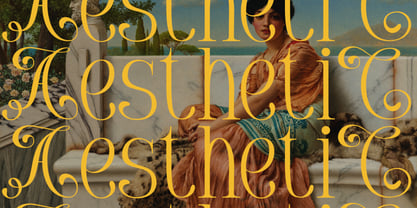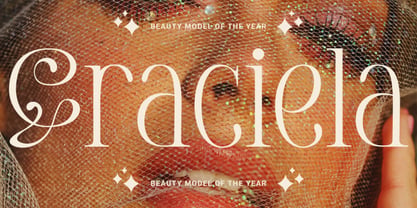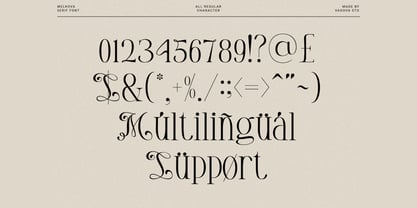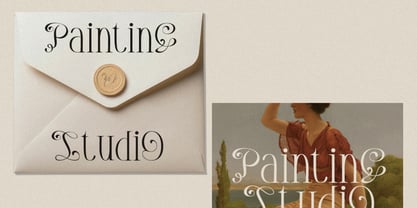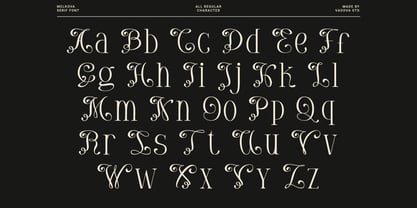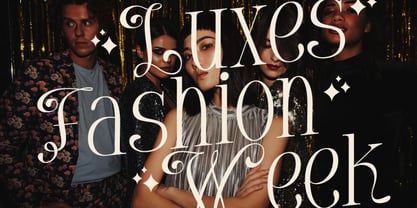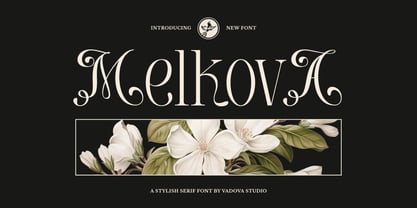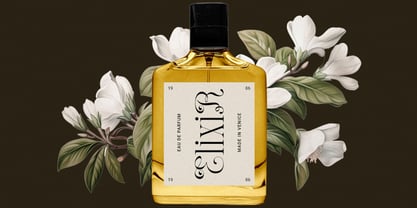
Melkova
by Vadova Std
Melkova is a stylish serif font with decorative curves and refined classical details that create an elegant and timeless character. The letterforms feature graceful terminals and balanced proportions, giving the font a luxurious and sophisticated presence. Its ornamental touches add personality without losing readability, making it suitable for expressive display use. Melkova is perfect for luxury branding, editorial headlines, logo design, fashion visuals, wedding designs, packaging, book covers, invitations, boutique branding, classic posters, premium marketing materials, cosmetic and jewelry branding, hotel and hospitality visuals, and refined print or digital projects that require an elegant serif expression.